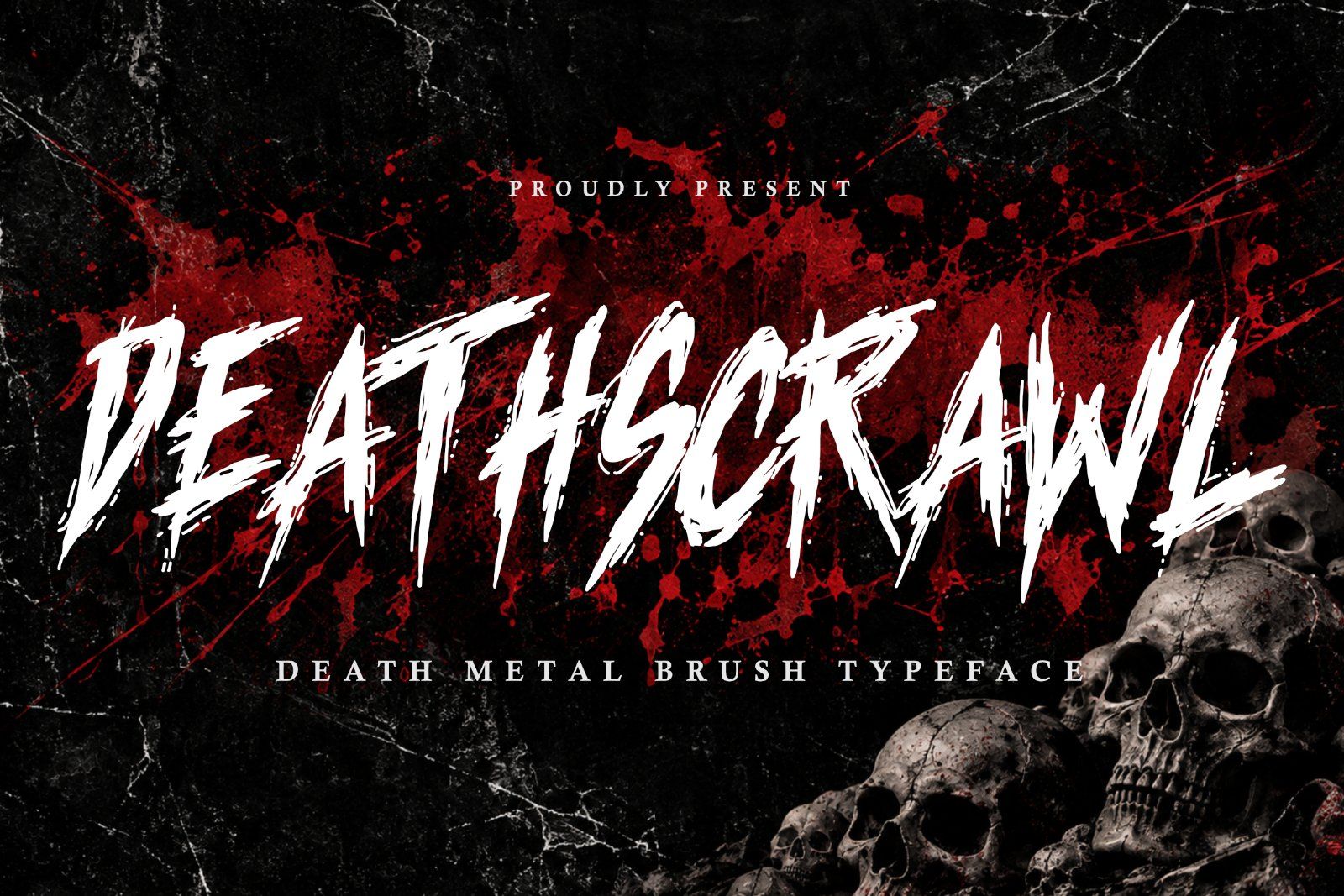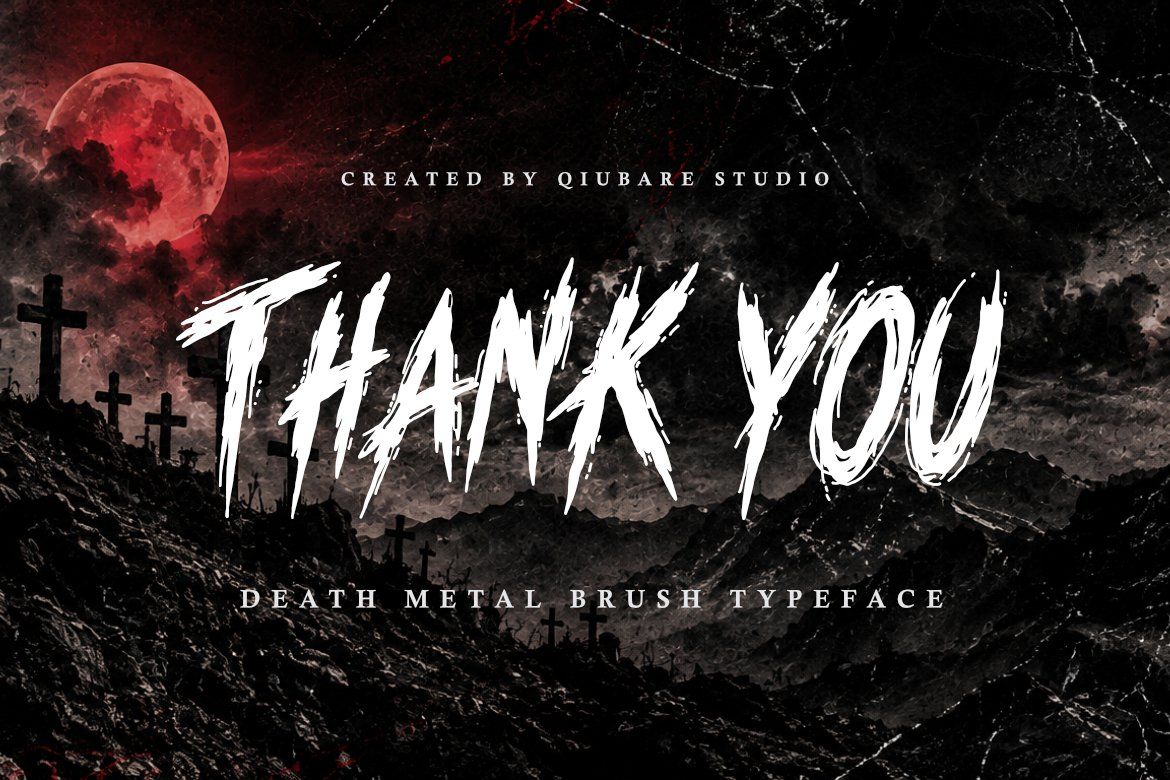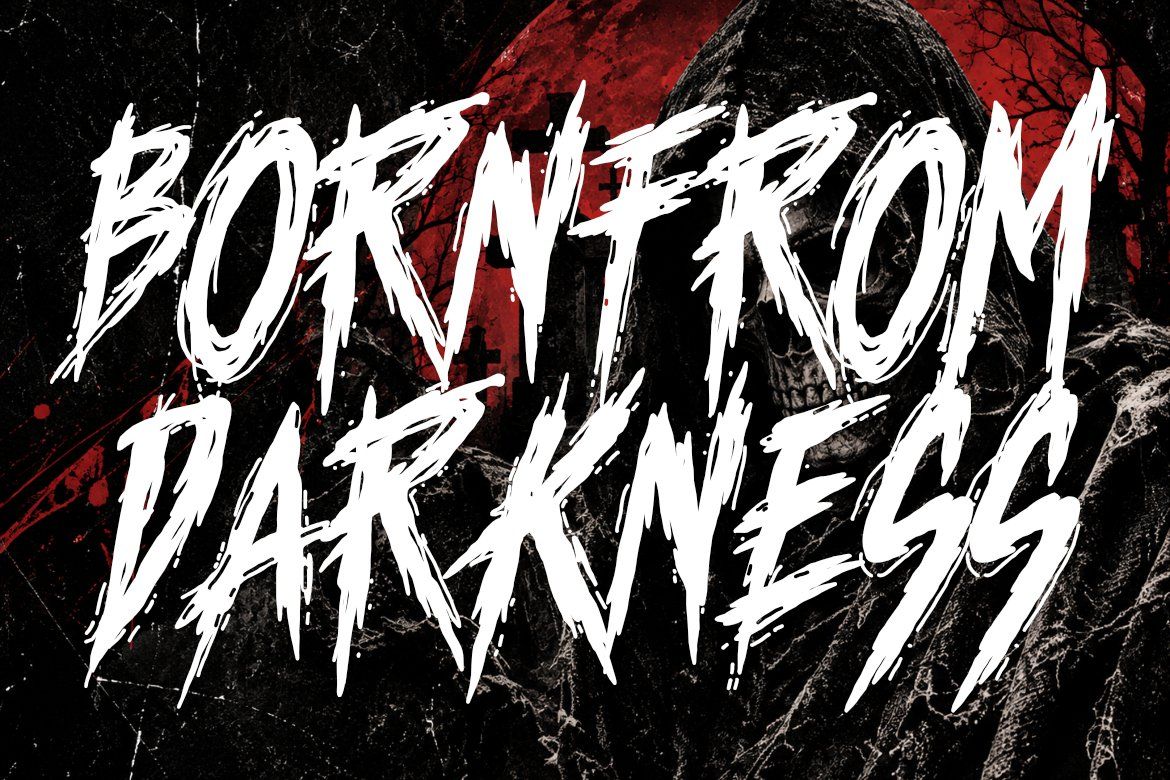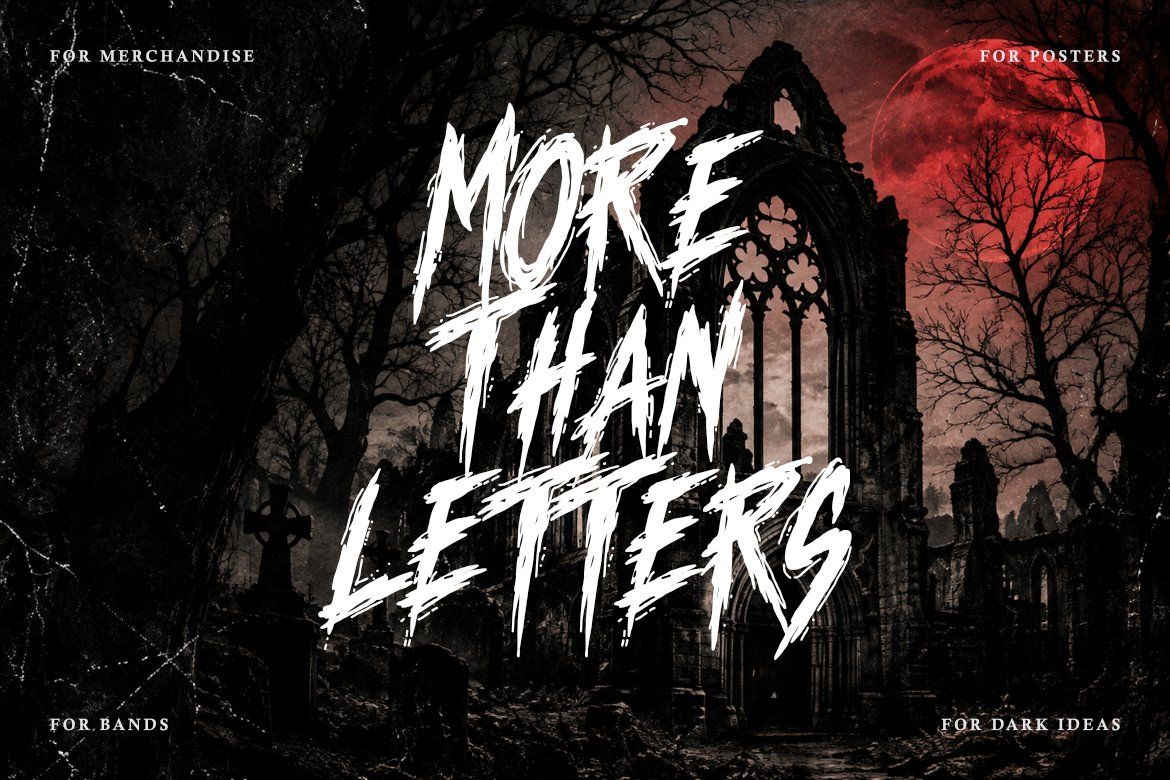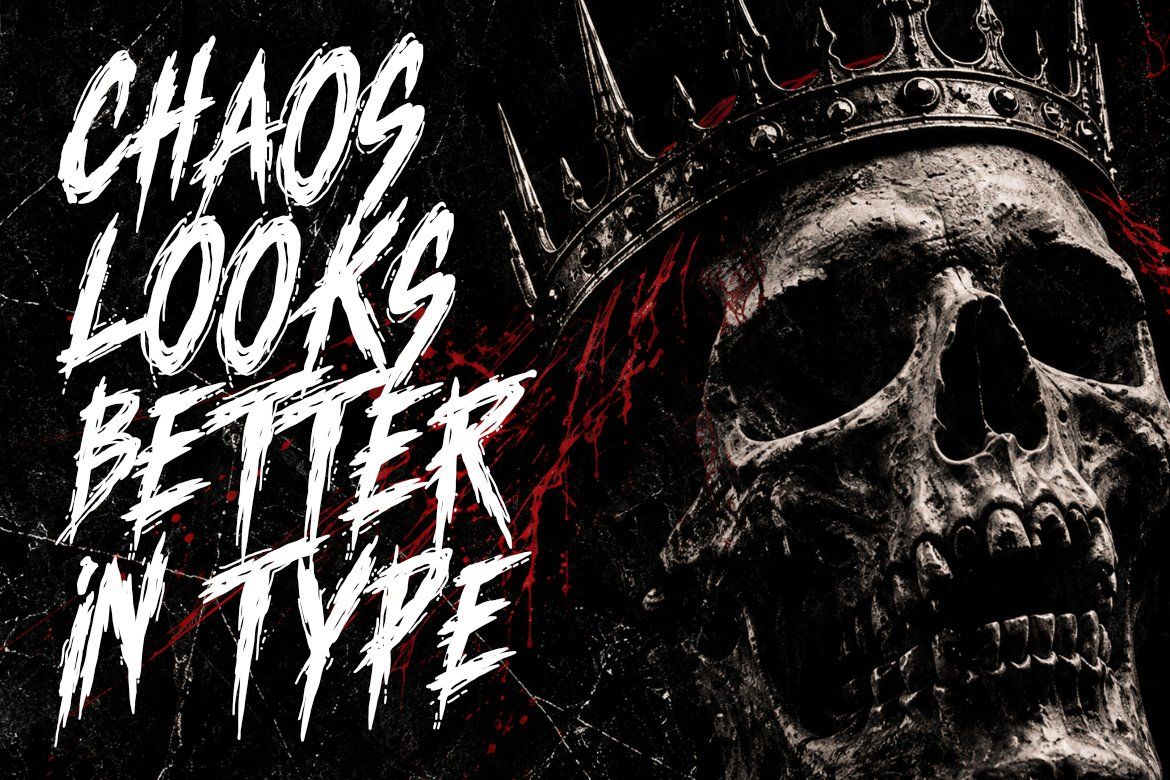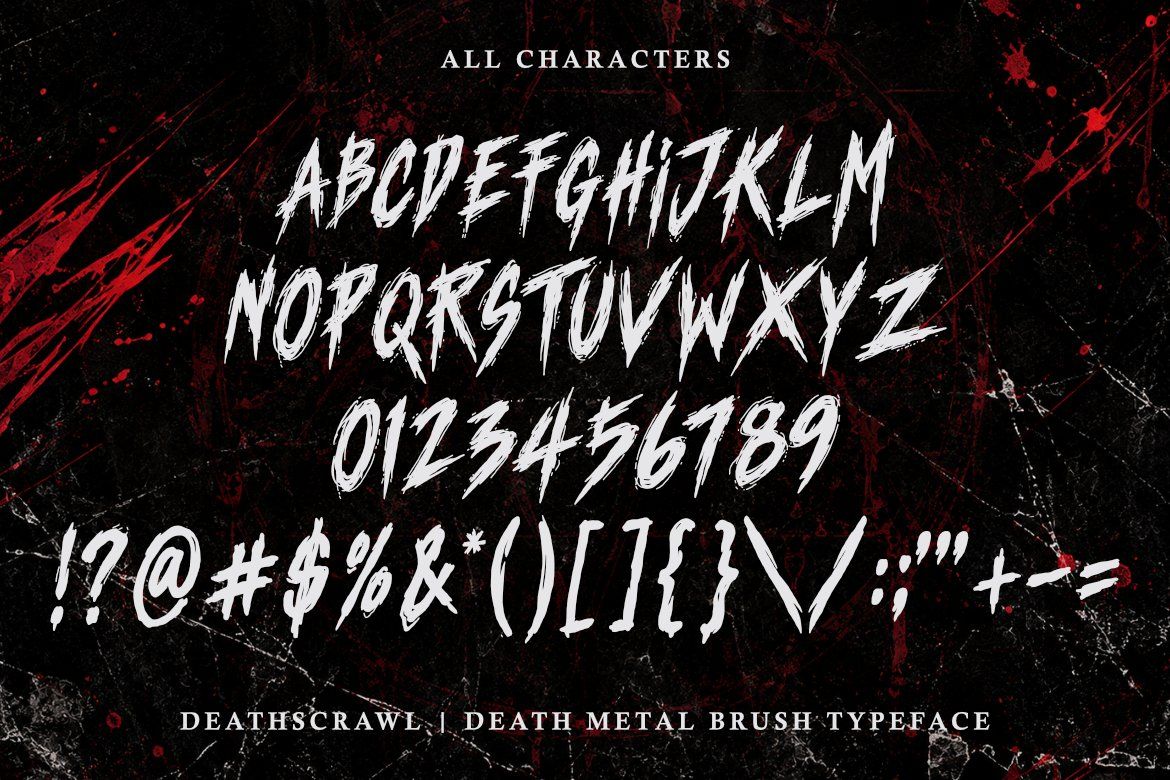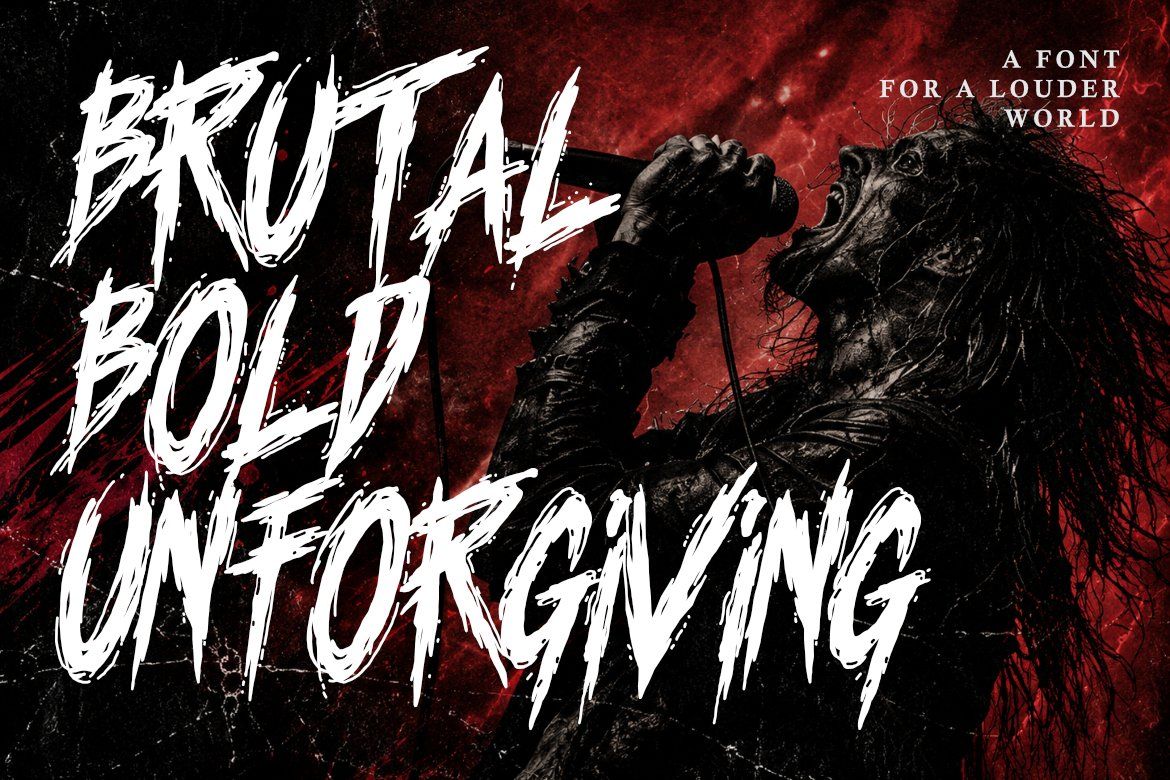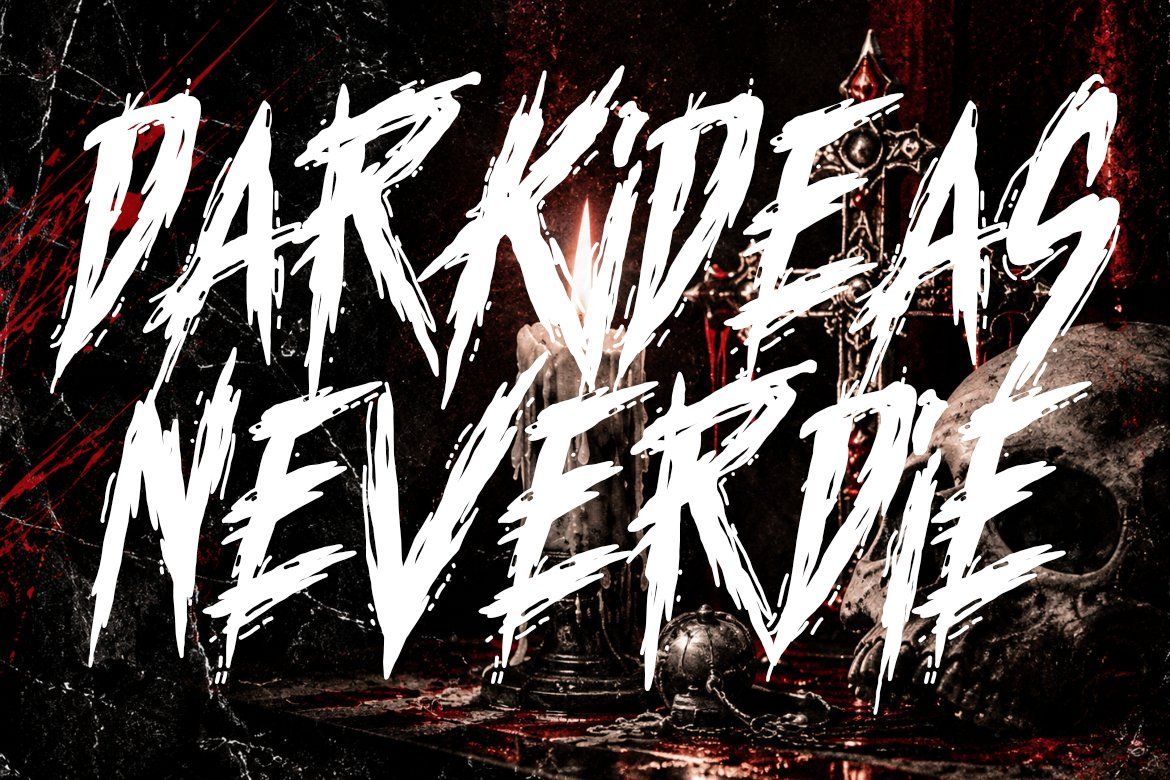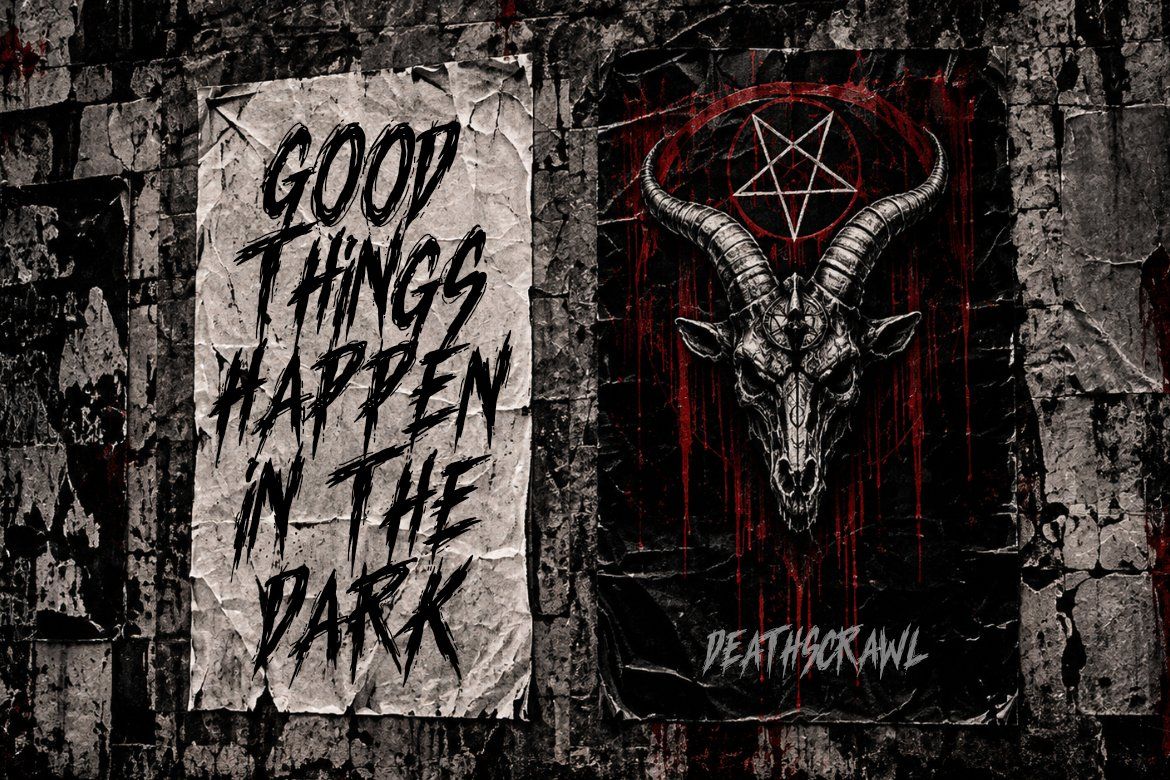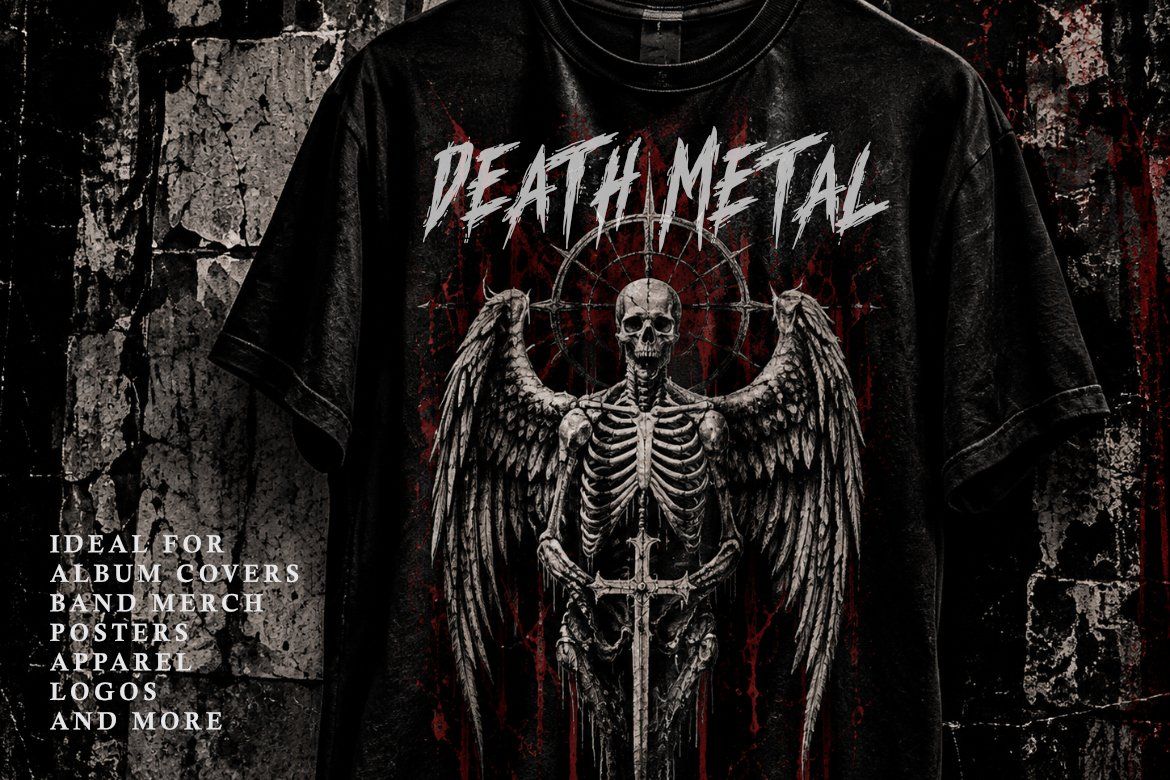
Death metal font DEATHSCRAWL is a brutal brush typeface created for dark, aggressive, and unconventional visual projects. Its rough strokes, sharp edges, elongated forms, and distressed character are designed for high-impact display typography.
Inspired by extreme metal artwork, underground graphics, horror imagery, gothic aesthetics, and grunge compositions, DEATHSCRAWL brings an expressive hand-brushed appearance to band identities, album artwork, posters, apparel, and other dark visual projects.
Perfect For:
• Death metal band logos
• Black metal artwork
• Album covers
• Band merchandise
• T-shirt designs
• Horror posters
• Dark branding
• Underground music artwork
• Concert posters
• Festival graphics
• Streetwear designs
• Apparel graphics
• Sticker designs
• Album artwork
• Music social media graphics
• Horror-themed projects
• Gothic artwork
• Grunge compositions
• Alternative branding
• Experimental typography
• Death metal brush style
• Aggressive hand-drawn appearance
• Rough and distressed character
• Uppercase characters
• Numerals
• Punctuation and symbols
• Designed for display use
• Suitable for dark, horror, metal, and grunge artwork
DEATHSCRAWL works especially well at large display sizes, where its irregular details and aggressive brush strokes can create a strong visual presence.